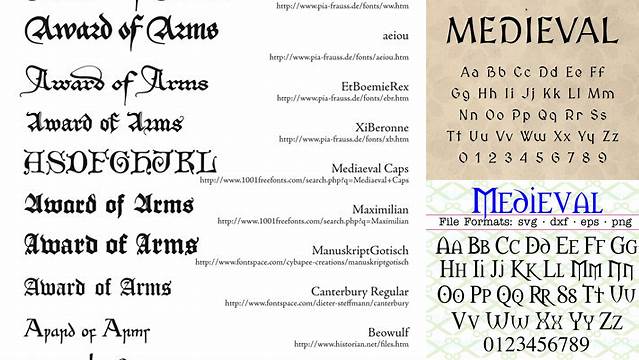
Medieval Fonts On Word: A Comprehensive Guide
What are Medieval Fonts?
Hey guys, let's kick things off by diving into what medieval fonts actually are. Essentially, these fonts are typefaces that mimic the handwriting and lettering styles prevalent during the Middle Ages. Think about those old manuscripts you've seen in movies or books—those intricate, ornate letters? That's the vibe we're going for. Medieval fonts often feature elaborate serifs, thick strokes, and a generally gothic or blackletter appearance. They evoke a sense of history, tradition, and even a touch of mystique. When you're looking to add a bit of old-world charm to your documents, presentations, or creative projects, these fonts can be your best friend. Whether it's for a school project, a themed invitation, or just for fun, understanding the characteristics of medieval fonts will help you choose the perfect one for your needs. Plus, knowing a bit about their history can add an extra layer of appreciation to your work.
Finding Medieval Fonts in Microsoft Word
So, you're ready to find some medieval fonts in Microsoft Word? Great! The good news is that Word comes with a few built-in options that can get you started. To find these fonts, open Word and click on the font selection dropdown menu. Scroll through the list, and you might spot some familiar names like "Gothic Text" or "Old English Text." These are your gateway fonts to that medieval aesthetic. If you don't see anything that screams "Middle Ages" right away, don't worry! You can always expand your font library by downloading and installing new fonts from external sources. There are tons of websites out there offering both free and premium medieval fonts. Once you've downloaded a font, installing it is usually as simple as right-clicking the font file and selecting "Install." After that, restart Word, and your new medieval font should appear in the font selection menu. Easy peasy!
Downloading Medieval Fonts for Word
Using Medieval Fonts for Headings
Now, let's explore how to effectively use medieval fonts for headings. These fonts can add a dramatic and thematic flair to your documents, but it’s all about using them judiciously. Medieval fonts are often quite ornate and can be difficult to read in large blocks of text, so they're best suited for headings and titles where readability isn't as critical. When using a medieval font for a heading, consider the overall tone and style of your document. If you're writing a historical paper, a medieval font can be a great way to set the tone right from the start. But if you're writing a modern business report, a medieval font might feel out of place. Experiment with different sizes and styles to see what looks best. You might want to pair a medieval font heading with a simpler, more readable font for the body text to ensure a good balance of style and clarity. Remember, the goal is to enhance your document, not overwhelm it.
Applying Medieval Fonts to Body Text
Okay, so applying medieval fonts to body text can be a bit tricky. As we've discussed, medieval fonts are often highly stylized and can be challenging to read in large blocks of text. However, if you're aiming for a specific aesthetic and you're willing to prioritize style over absolute readability, it can be done. The key is to choose a medieval font that is relatively clear and legible. Some medieval fonts are simpler and less ornate than others, making them more suitable for body text. Also, consider increasing the font size and adjusting the line spacing to improve readability. Experiment with different color combinations to see what works best. For example, using a dark medieval font on a light background can help improve contrast and make the text easier to read. Just be sure to test your document on different screens and devices to ensure that the body text remains readable for your audience. If readability becomes a major concern, you might want to reserve medieval fonts for headings and titles and use a simpler font for the body text.
Medieval Font Styles
Let's dive into the various medieval font styles. When you think of medieval fonts, you're probably imagining something akin to Gothic or Blackletter. These styles are characterized by their thick strokes, sharp angles, and ornate details. Gothic fonts, also known as Textura, were widely used in medieval manuscripts and are instantly recognizable. Another popular style is Uncial, which features rounded, more flowing letterforms. Uncial fonts were commonly used in early Christian texts and have a more elegant and approachable feel. Then there's Carolingian Minuscule, a script developed during the reign of Charlemagne. This style is known for its clarity and legibility, making it a good choice if you want a medieval font that's still easy to read. Each of these medieval font styles has its own unique character and history, so exploring them can be a fun way to add depth and authenticity to your projects. Understanding these styles will help you choose the perfect medieval font for your specific needs.
Gothic Fonts in Word
So, you're looking to use gothic fonts in Word? Awesome! Gothic fonts are a classic choice for capturing that medieval vibe. As we mentioned earlier, Word comes with a couple of built-in options like "Gothic Text" and "Old English Text" that can get you started. These fonts feature the characteristic thick strokes, sharp angles, and ornate details that define the gothic style. To use gothic fonts in Word, simply select the text you want to format, and then choose your desired gothic font from the font selection menu. You can also adjust the font size, color, and other formatting options to customize the look of your text. If you want to explore more gothic font options, you can download and install fonts from external sources. Just remember to choose reputable font websites and pay attention to the licensing. With a little experimentation, you can create stunning gothic-inspired documents in Word.
Blackletter Fonts in Word
Alright, let's talk about blackletter fonts in Word. Blackletter, also known as Gothic script, is a typeface that was widely used in Europe during the Middle Ages. It's characterized by its narrow, angular letterforms and thick, dark strokes. Blackletter fonts have a strong, dramatic appearance and can add a sense of gravitas to your documents. To use blackletter fonts in Word, you can either use the built-in options like "Gothic Text" or "Old English Text," or download and install blackletter fonts from external sources. When choosing a blackletter font, consider the overall tone and style of your document. Blackletter fonts can be quite ornate and difficult to read, so they're best suited for headings and titles. You might want to pair a blackletter heading with a simpler, more readable font for the body text. Experiment with different sizes and styles to see what looks best. With the right blackletter font and a bit of creativity, you can create visually striking documents in Word.
Old English Fonts in Word
Let's explore Old English fonts in Word. Old English fonts are a specific style of blackletter that was popular in England during the medieval period. These fonts have a distinct, traditional look and can add a touch of historical authenticity to your documents. Word includes an "Old English Text" font as a built-in option, making it easy to use Old English fonts in your projects. To apply the Old English font, simply select the text you want to format and choose "Old English Text" from the font selection menu. You can also download and install additional Old English fonts from external sources if you want more variety. When using Old English fonts, keep in mind that they can be challenging to read in large blocks of text, so it's best to use them sparingly, such as for headings, titles, or decorative elements. With the right touch, Old English fonts can add a unique and elegant flair to your Word documents.
Resources for Learning More About Medieval Typography
If you're eager to dive deeper, here are some resources for learning more about medieval typography. There are numerous books, websites, and online courses that offer insights into the history, styles, and techniques of medieval typography. Some recommended books include "The Elements of Typographic Style" by Robert Bringhurst and "Medieval Calligraphy: Its History and Technique" by Marc Drogin. There are also many websites and blogs that feature articles, tutorials, and examples of medieval typography. Additionally, you can find online courses and workshops that teach the art of medieval calligraphy and lettering. By exploring these resources, you can expand your knowledge of medieval typography and develop your skills in this fascinating field.